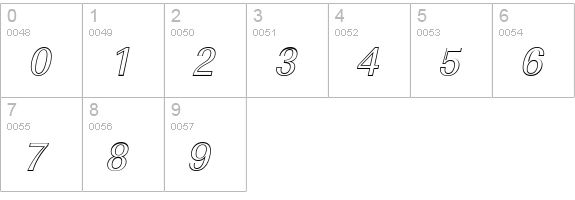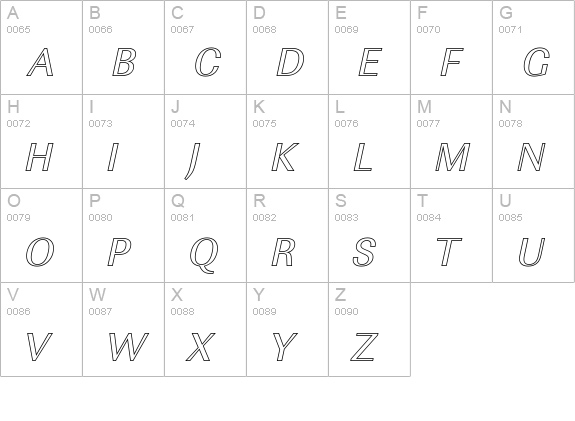
ImperialOu-Italic is a distinctive, italic variant in the ImperialOu typeface family \xE2\x80\x94 well suited to design and typography projects.
ImperialOu-Italic font is a sophisticated and elegant typeface that exudes a sense of luxury and grandeur. Its beautifully slanted italics add a touch of class to any design project, making it perfect for invitations, branding, and editorial work. The flowing curves and sharp serifs of ImperialOu-Italic create a timeless and refined look that will captivate your audience. What's even better is that ImperialOu-Italic font is available for free download at FontsMarket.com. This means you can elevate your designs with this exquisite typeface without having to break the bank. Don't miss out on the opportunity to add this stunning font to your collection and enhance your projects with a touch of sophistication and elegance. Download ImperialOu-Italic today and take your designs to the next level.